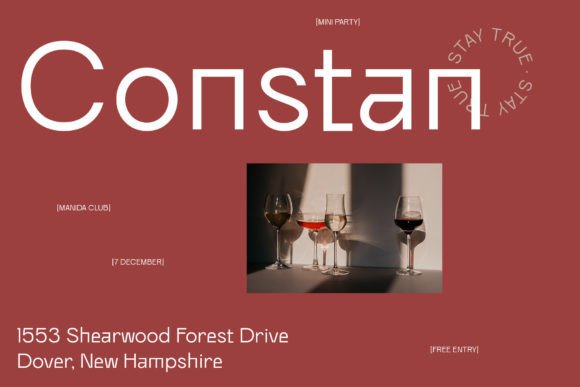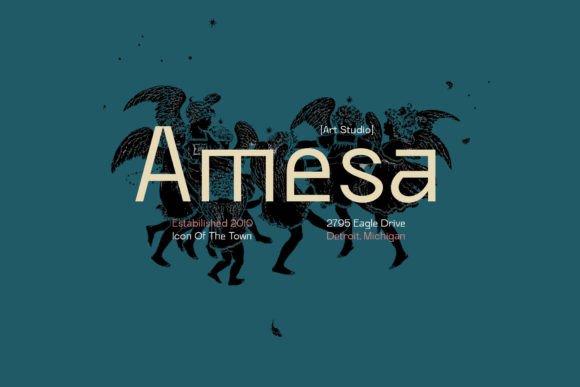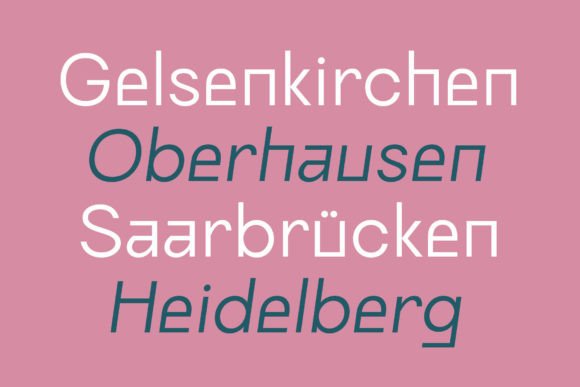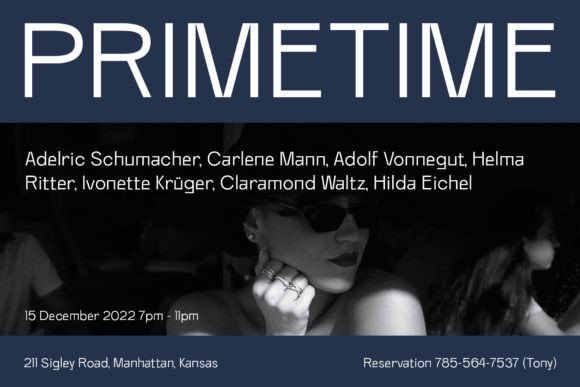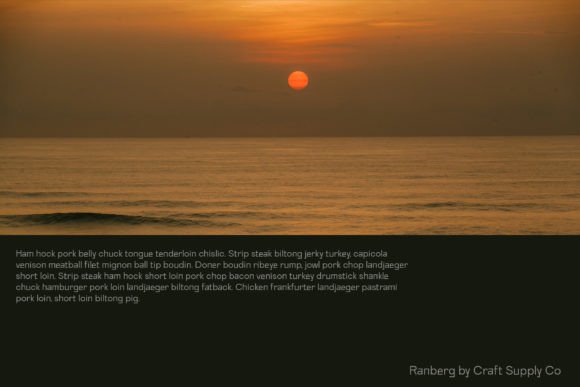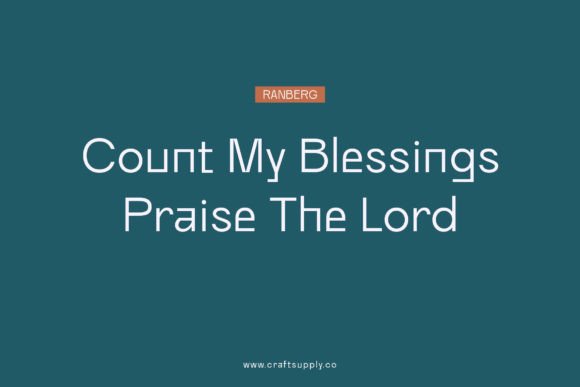
Introduction to Ranberg Font
Ranberg is a modern, stylish, and incredibly unique sans serif font.
Use this original font to add that special touch to any design idea you can think of .
Key Features of Ranberg Font
Why Choose Ranberg Font?
Ranberg Font offers exceptional quality and versatility, making it a valuable addition to your design toolkit. Whether you’re creating for personal projects or commercial use, Ranberg Font delivers professional results.